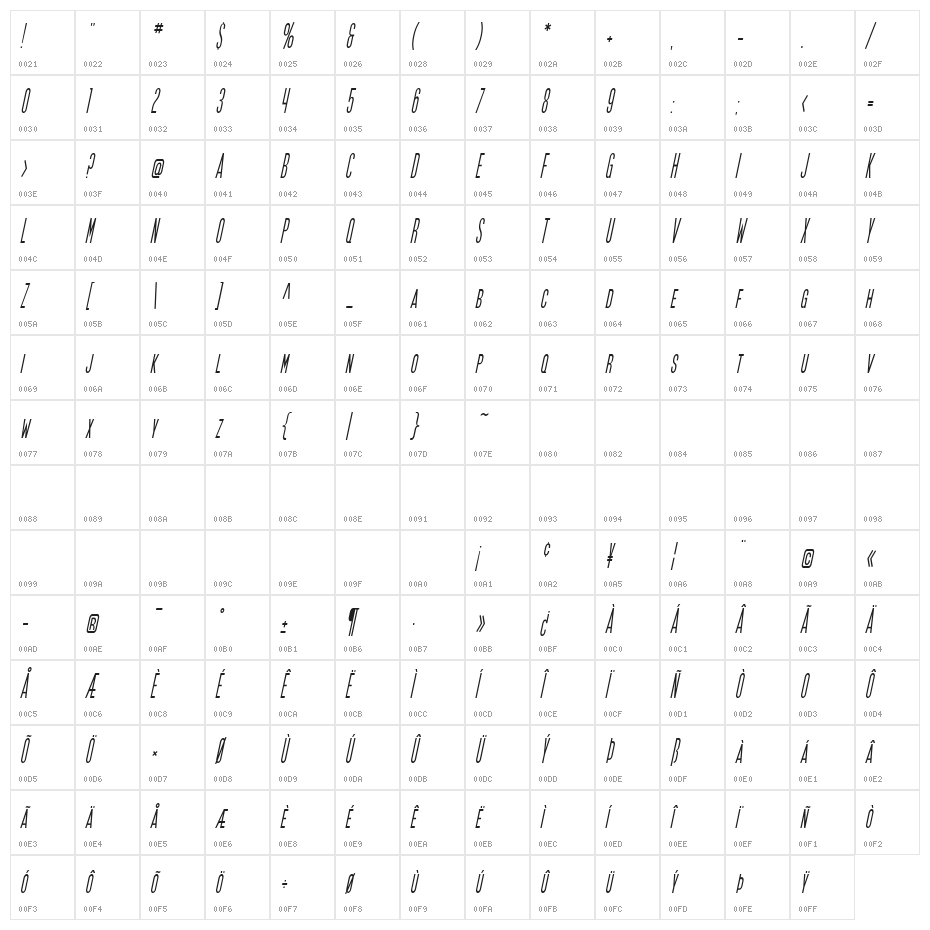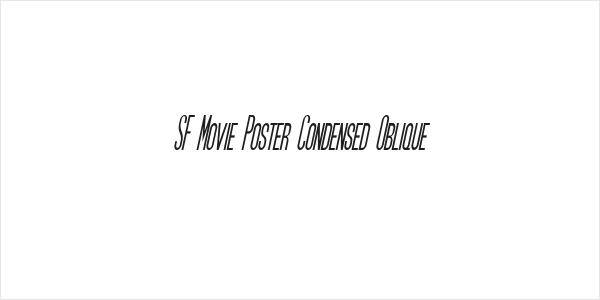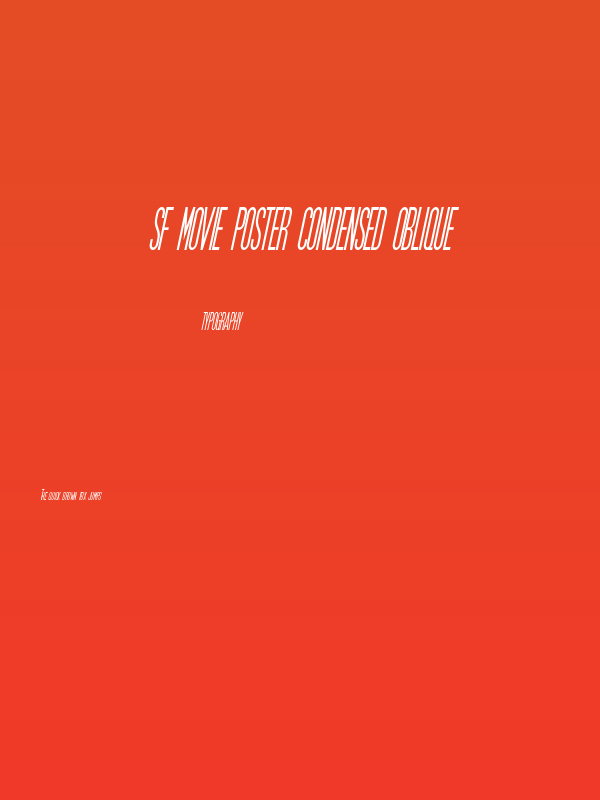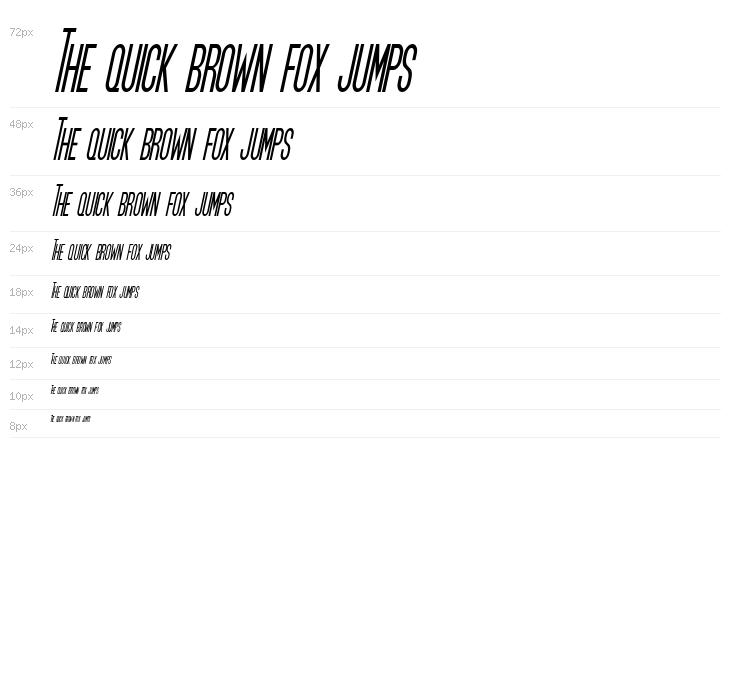
SF Movie Poster Condensed Oblique Font
SF Movie Poster Condensed Oblique Description
This font features a condensed and oblique style, characterized by its tall, narrow letterforms and a noticeable slant to the right. The design is sleek and modern, with clean lines that give it a streamlined appearance. The uppercase and lowercase letters maintain a consistent height, contributing to its uniform look. The numerals and special characters are designed to match the overall aesthetic, ensuring a cohesive appearance across all text. This font's condensed nature makes it ideal for fitting more text into a limited space while maintaining readability.
| Proposed Projects | Ideal for movie posters, advertising, branding, and any project requiring a modern, space-efficient typeface. |